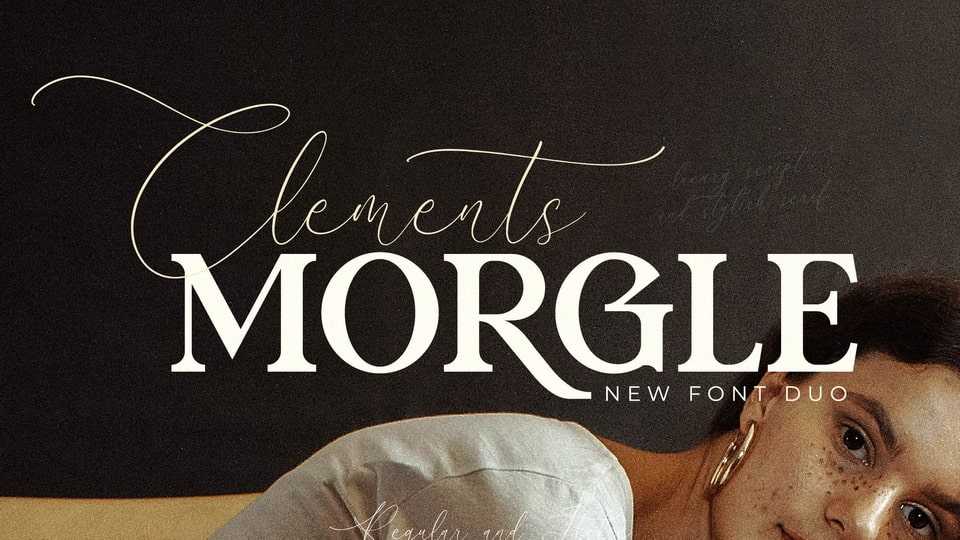
Download Clements Morgle font, a stunning font duo with an elegant serif and a delicate script. Stylish, elegant, and classy, Clements Morgle font is suitable for all your design projects that need a refined look.